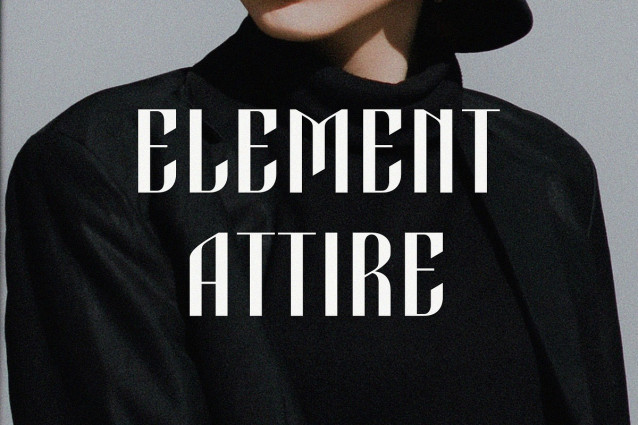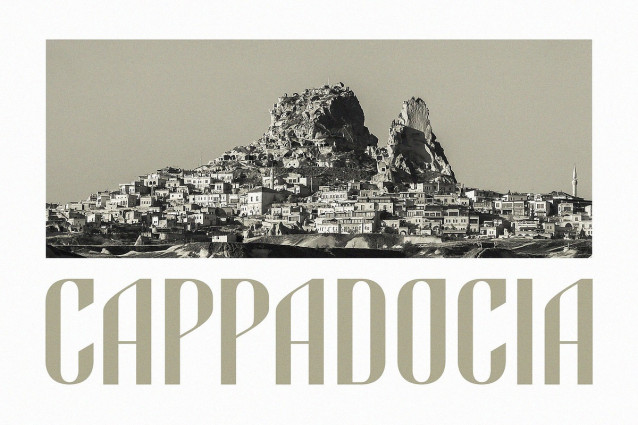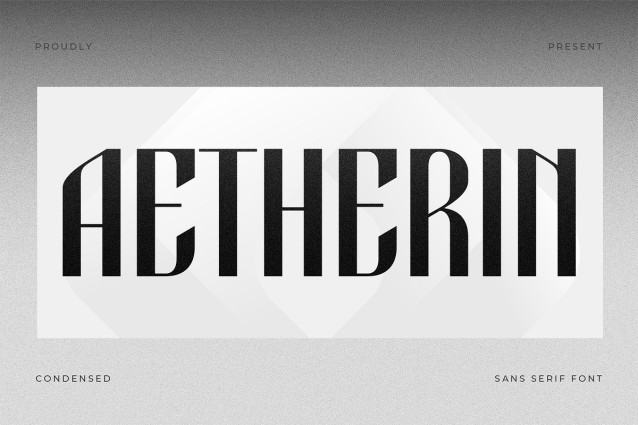
Aetherin Font
Aetherin Font is a bold and elegant condensed sans serif font inspired by retro-futuristic aesthetics. With its unique letterform construction and stylish geometric strokes, Aetherin blends vintage charm with modern edge — making it the perfect choice for high-impact headlines, fashion editorials, luxury logos, and creative branding.
This typeface features sharp vertical contrast, a sleek condensed structure, and distinct character shapes that bring a timeless sophistication to any design.